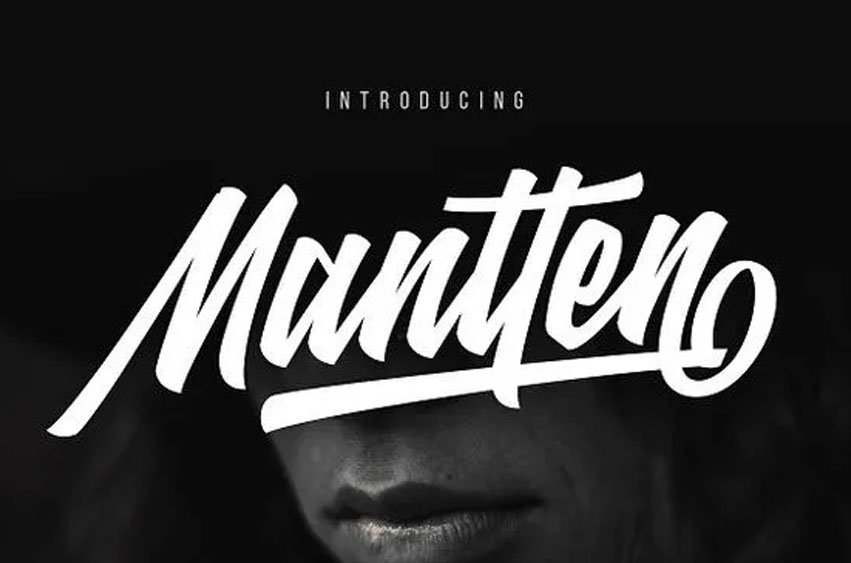
Mantten Font
Mantten Font is a  strong and unique font which was developed in order to facilitate the creation of logotype posters, T-Shirt prints, and title writing, in any artistic project. Our over 290 glyphs will definitely make that task a lot easier for you!